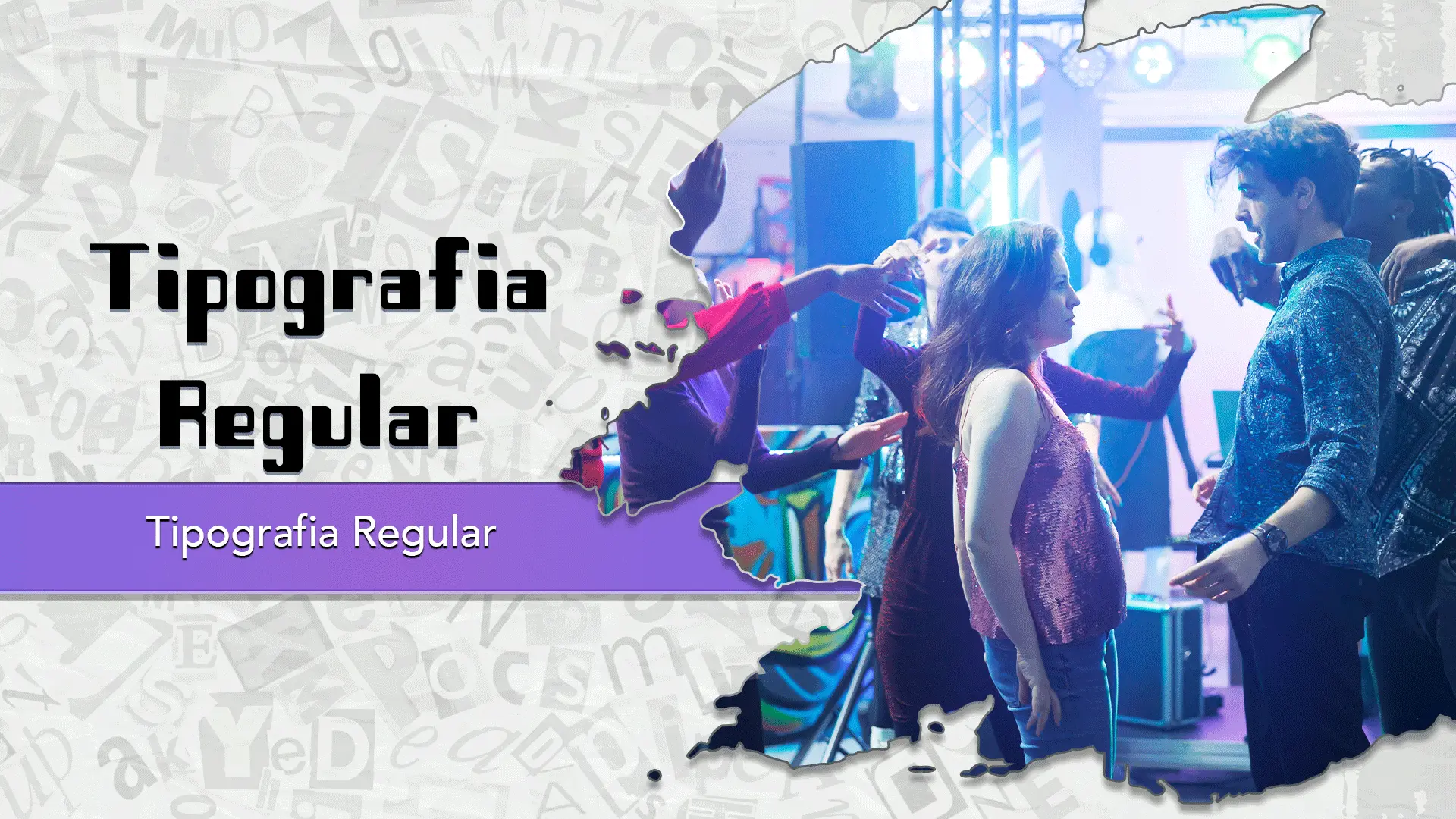
The tipografia font family may be ideal for you if you enjoy working on an artistic design project. The lively, expressive look of this typeface, which was created by rebecaps, makes it ideal for Website headlines and navigation, Modern and minimalist brands, Tech startups or creative agencies, Display and Headline Text(Posters and Flyers, Event invitations) and other light-hearted visual projects.
Regular are the one primary font styles of the tipografia font family. You may build dynamic, visually appealing text layouts with the distinct flair that each style offers. With crisp, readable lines and a relaxed tone.